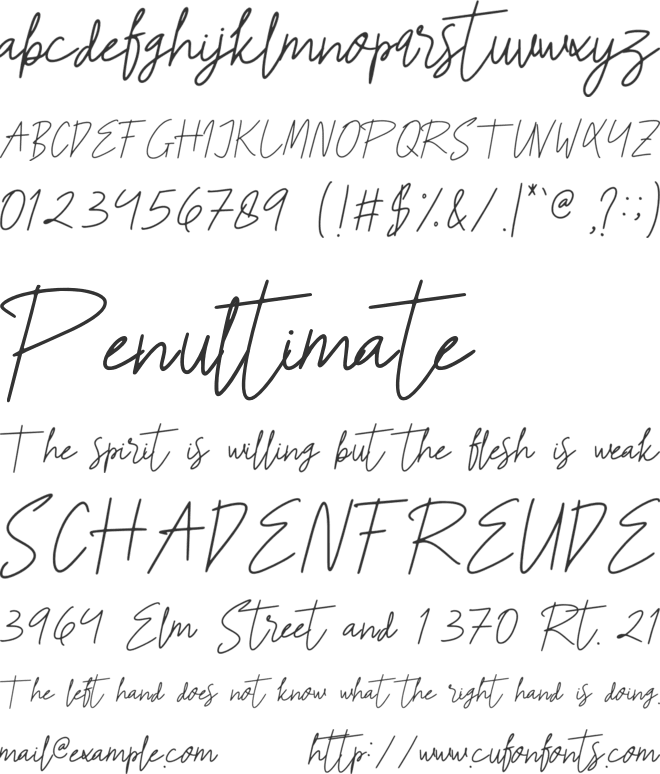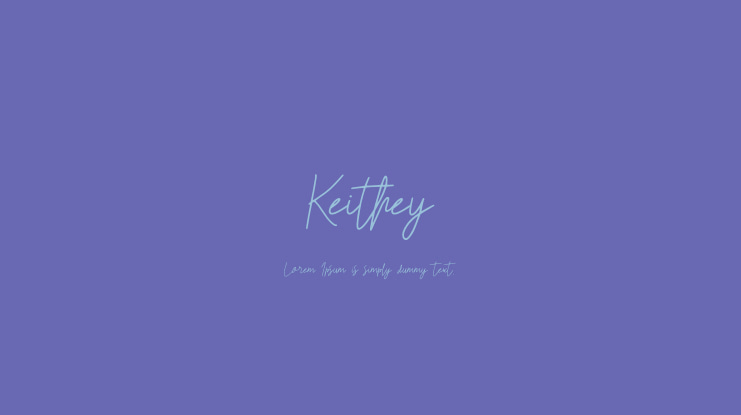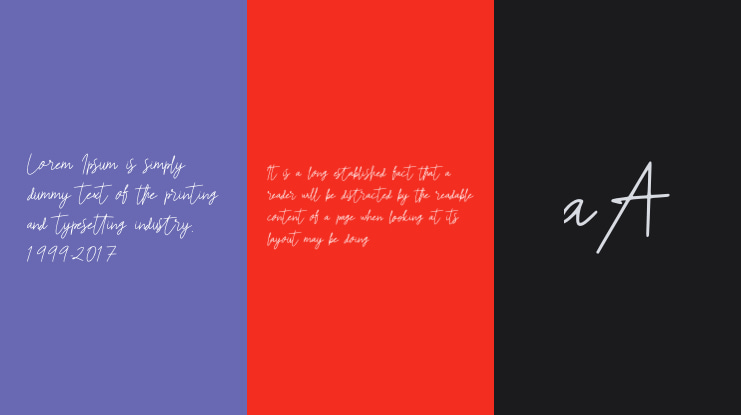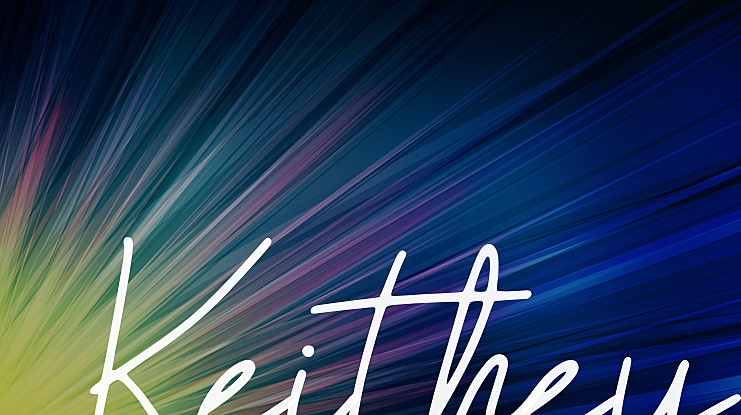
Keithey Font
Proudly Present, Keithey
Kithey is a Signature Style Font
Keithey is perfect for product packaging, branding project, megazine, social media, wedding, or just used to express words above the background.